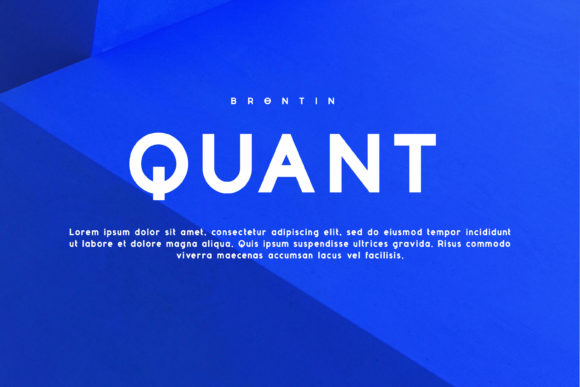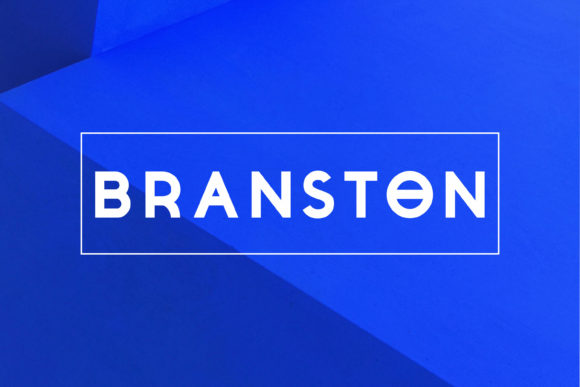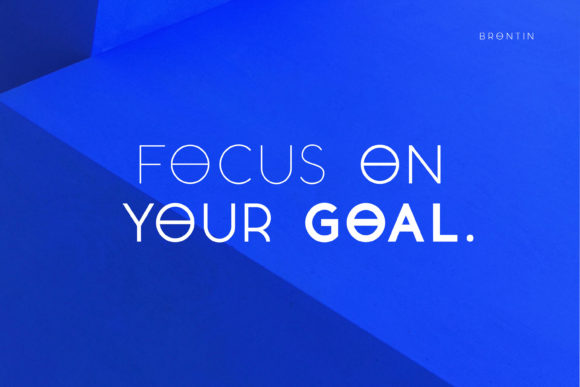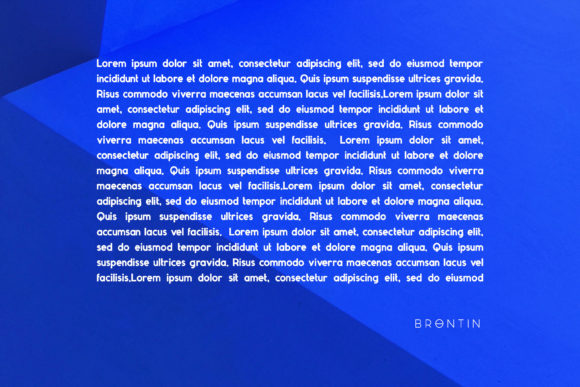
The Designer’s Delight: Exploring the Brontin Font
I’ll never forget the struggle I faced while working on a project for a client who needed a modern and clean display font. I had spent hours scouring the internet for the perfect one, only to end up with a font that was either too bland or too over-the-top. That’s when I stumbled upon the Brontin Font, and it instantly became my go-to choice. In this article, I’ll share my experience with this stunning font, its features, and how to make the most of it in your designs.
An Honest Review of Brontin Font
What I Love About Brontin Font
- ✨ Clean and Modern Design: Brontin Font boasts a sleek and contemporary look that’s perfect for posters, flyers, and prints.
- ✅ High Versatility: This font can be used for a wide range of design projects, from branding and advertising to packaging and more.
- 💡 Excellent Legibility: The font’s clear and concise design ensures that your text remains readable, even at smaller sizes.
While Brontin Font is an excellent choice, there are a few minor limitations to consider:
- 🤔 Limited Serif Options: Brontin Font is primarily designed as a sans-serif font, which might limit its use in projects requiring traditional serif fonts.
- ⚠️ Glyph Limitations: While the font has a wide range of glyphs, it might not have every special character or symbol you need.
The Designer Inspiration Behind Brontin Font
Brontin Font was designed with the goal of creating a clean and modern display font that’s both versatile and elegant. The designer aimed to craft a font that’s perfect for a wide range of design projects, from posters and flyers to branding and advertising. With its sleek lines and contemporary look, Brontin Font is sure to make a statement in any design.
| Font Name | Brontin Font |
| Author | BeeType |
Q: What type of designs is Brontin Font best suited for?
A: Brontin Font is perfect for posters, flyers, prints, and other display designs where a clean and modern look is desired.
Q: Is Brontin Font suitable for body text?
A: While Brontin Font is primarily designed as a display font, it can be used for body text in certain contexts. However, its clean and modern design may not be ideal for long-form reading.